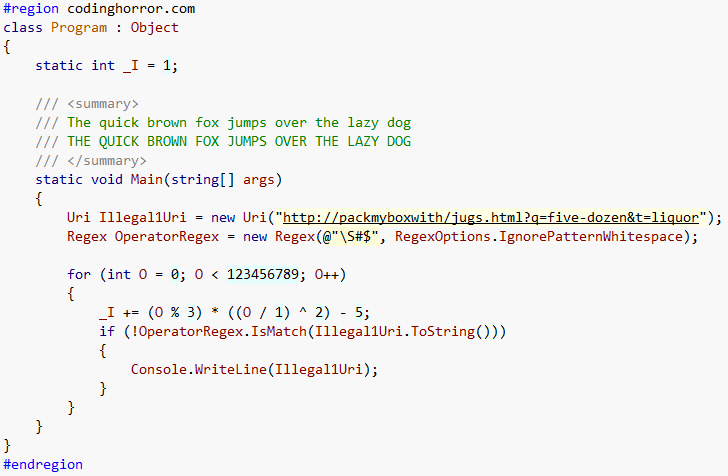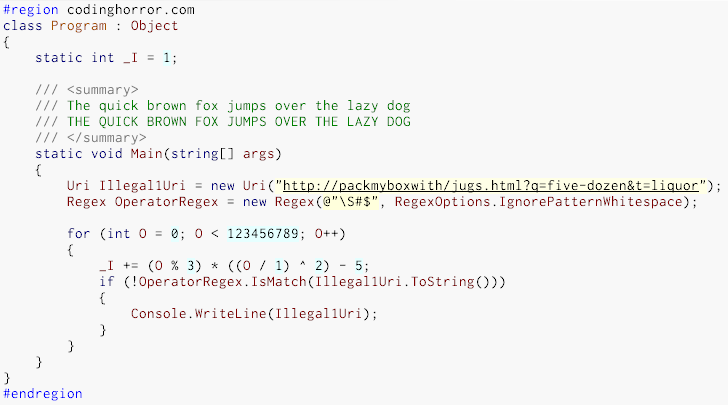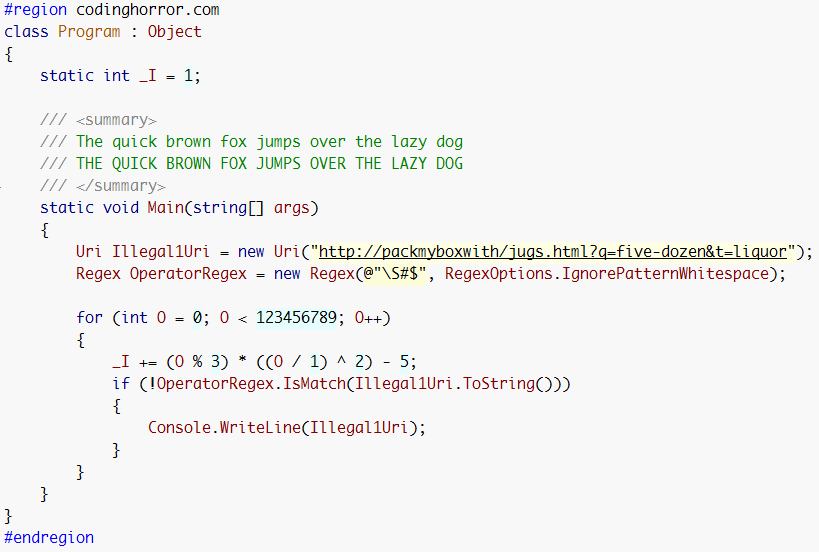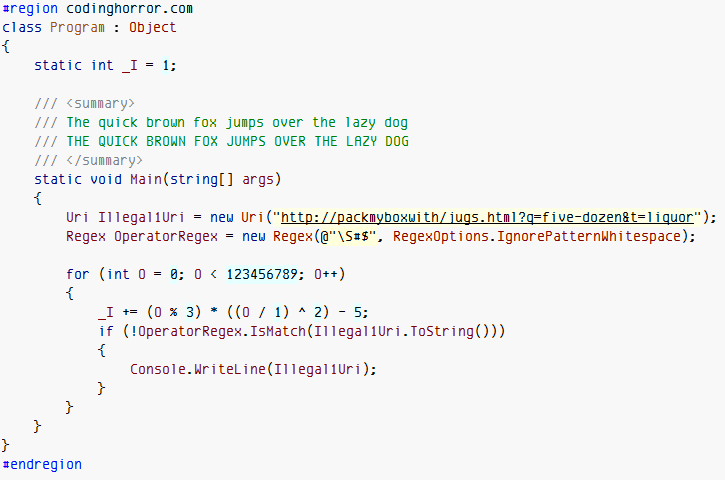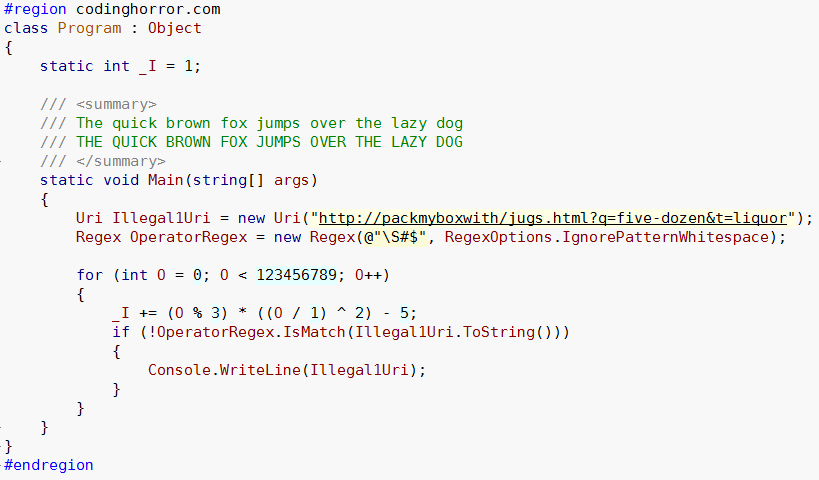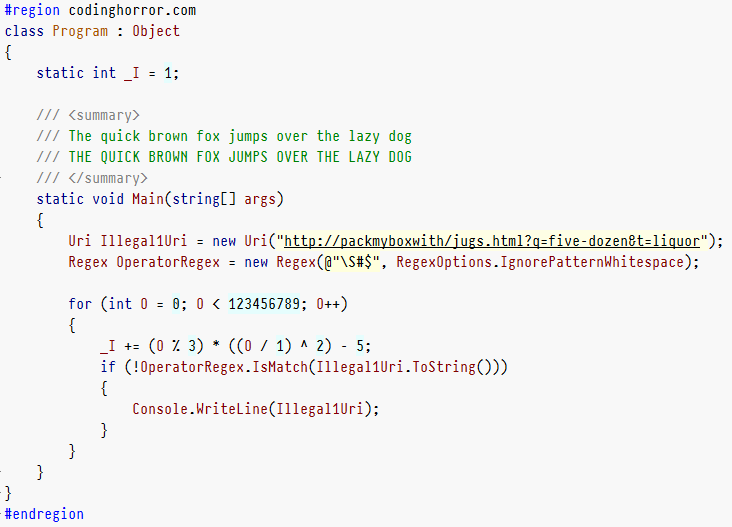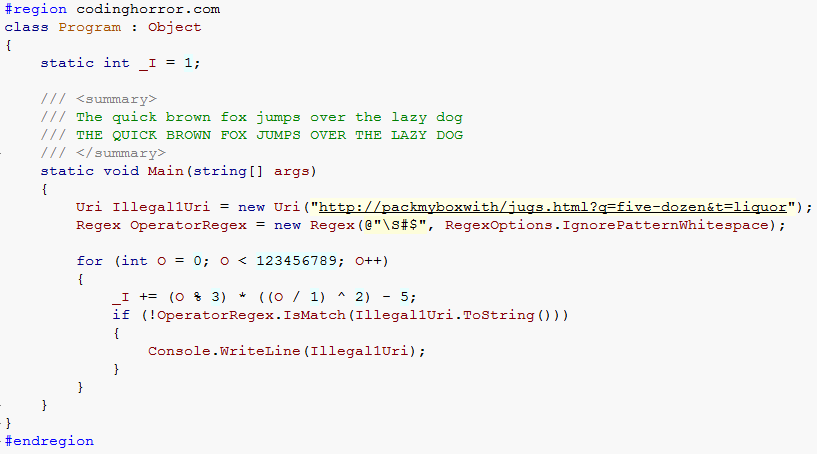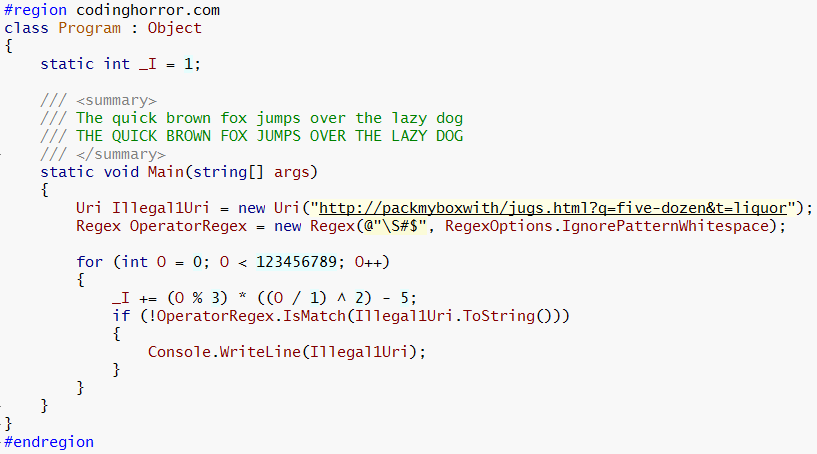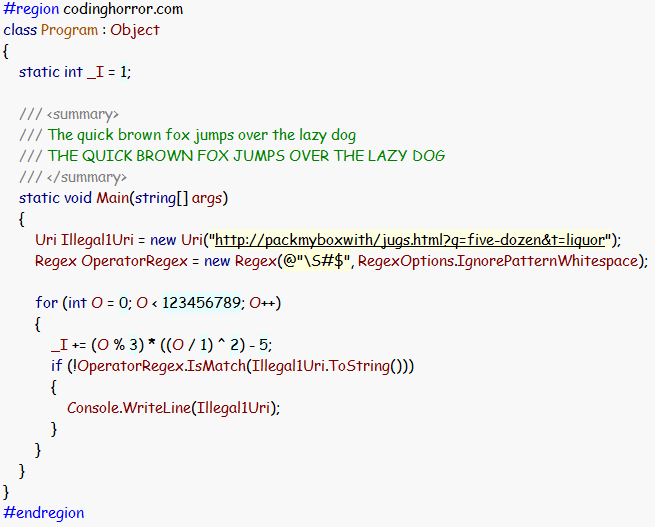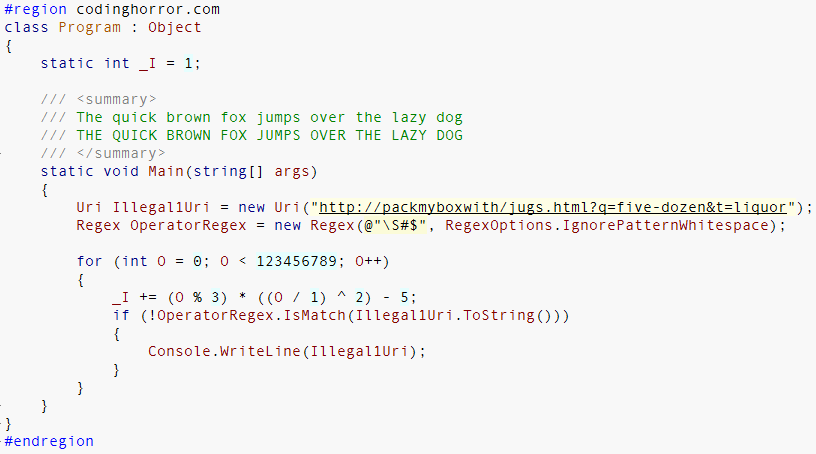
Revisiting Programming Fonts
I’ve experimented with programming fonts and IDE color schemes plenty in the past. But now that I’ve given in to the inevitability of ClearType on large LCDs, I’ve basically settled on Consolas. It’s hard to beat Consolas. It’s darn close to the ultimate monospace programming font in my estimation. That’s why I was so intrigued when I read about Inconsolata, a non-denominational OpenType relative of Consolas, which unlike Consolas, works equally well with ClearType enabled or disabled.
Once I tried out Inconsolata, I figured I might as well revisit all the common, popular programming fonts under the same conditions. So here goes. These are rendered under Windows Vista, with ClearType enabled, using my standard programming font comparison code sample.
Consolas, 11 point.
Consolas font, code sample
Inconsolata, 11 point.
Inconsolata font, code sample
Monaco, 11 point.
Monaco font, code sample
Envy R, 11 point.
Envy R font, code sample
Vera Sans Mono, 11 point.
Vera Sans Mono font, code sample
Pragmata, 11 point.
Pragmata font, code sample
Courier New, 11 point.
Lucida Typewriter, 11 point.
Lucida Sans Typewriter font, code sample
The Font of the Gods, 11 point.
Comic Sans font, code sample
Andale Mono, 11 point.
Andale Mono font, code sample
Choice of programming font is as much a personal preference as anything else. Decide for yourself what works for you. I’ll limit my comments to a few observations:
1. Please don’t use the default Courier New typeface. Be kind to your eyes.
2. Personally, I still don’t think anything beats Consolas; it’s an outstanding monospace typeface design, highly optimized for ClearType display on LCDs.
3. I’ll never understand the appeal of Monaco amongst the Mac crowd. It’s an unreadable mess to my eye.